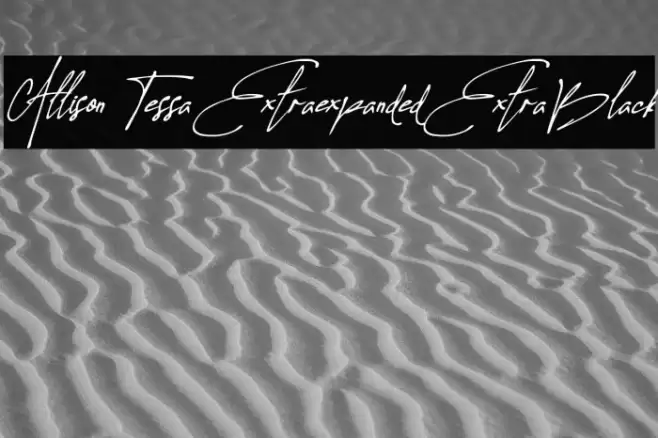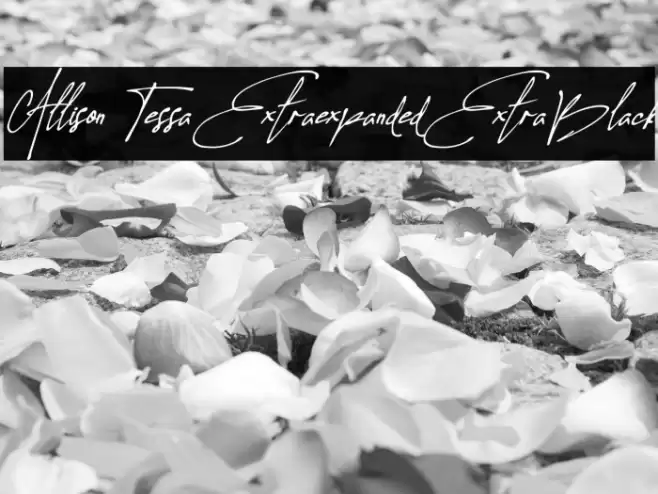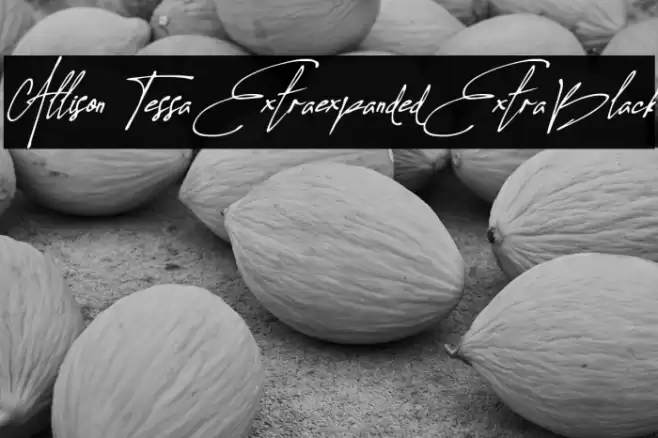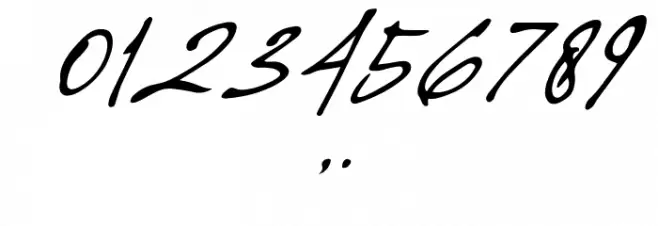
Allison Tessa Extra-expanded ExtraBlack Font
Allison Tessa Extra-expanded ExtraBlack Description
This font features an elegant and expressive script style, characterized by its fluid and dynamic strokes. The uppercase letters exhibit a graceful and airy quality, with elongated lines and a sense of movement. The lowercase letters maintain a consistent flow, with some letters featuring distinctive loops and curves that add to the font's charm. The numerals are bold and slightly slanted, complementing the overall style. Special characters are seamlessly integrated, maintaining the font's cohesive appearance. The font's artistic flair makes it suitable for creative and decorative applications.
An elegant, expressive script font with fluid, dynamic strokes and artistic flair from Uncategorized fonts.
- Proposed Projects: Ideal for wedding invitations, greeting cards, branding projects, and artistic posters.
- Use Case: Logos, Invitations, Artistic projects